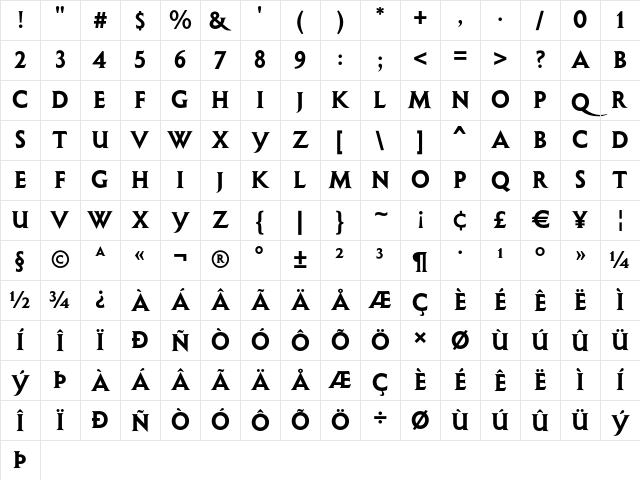
Complete ShangoGothic ExtraBold glyph index. Displaying only characters natively supported by ShangoGothic ExtraBold font.
ShangoGothic takes a clean, functional approach - its unadorned letterforms prioritise legibility and work reliably across screen and print environments. Its bold stroke weight gives it real presence on the page.